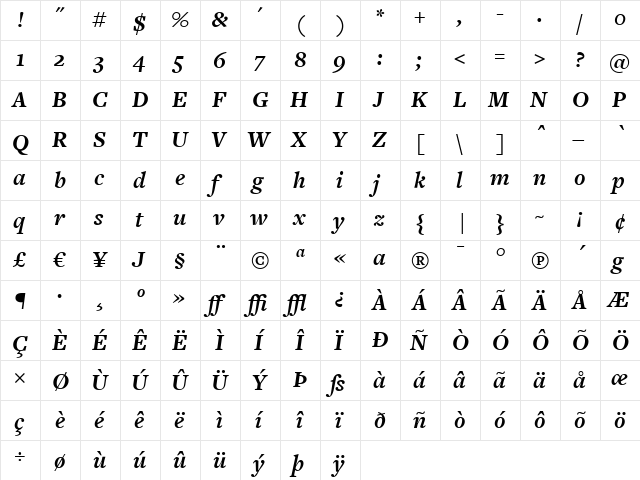
FreightText Bold Italic
| Foundry | Joshua Darden & Phil's Fonts, Inc |
| Designer | Joshua Darden |
Design Context for FreightText Typeface
FreightText is a composed and adaptable typeface that performs quietly and consistently across a wide range of design contexts. Its italic angle brings a sense of urgency and motion to the letterforms. Its bold stroke weight gives it real presence on the page.
Pro Tip: Try FreightText for annotation and caption copy alongside an upright companion — the contrast in angle creates a dynamic but ordered typographic system.